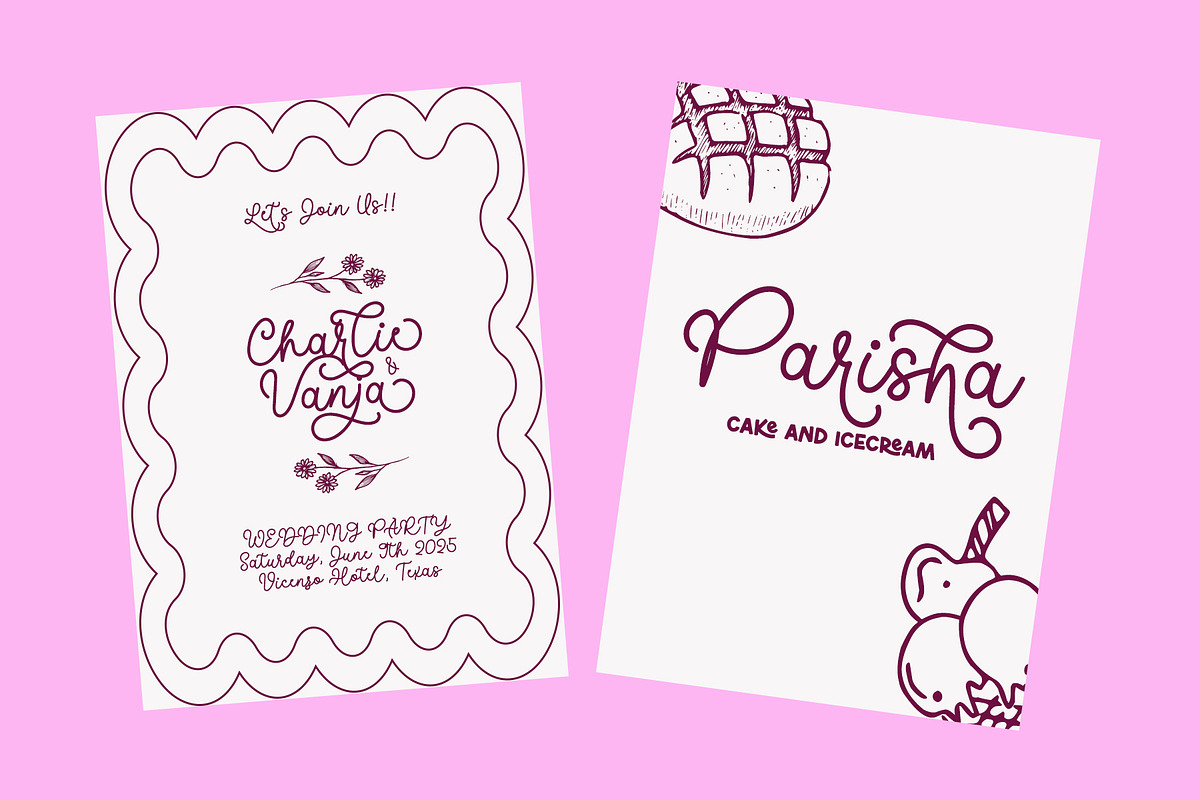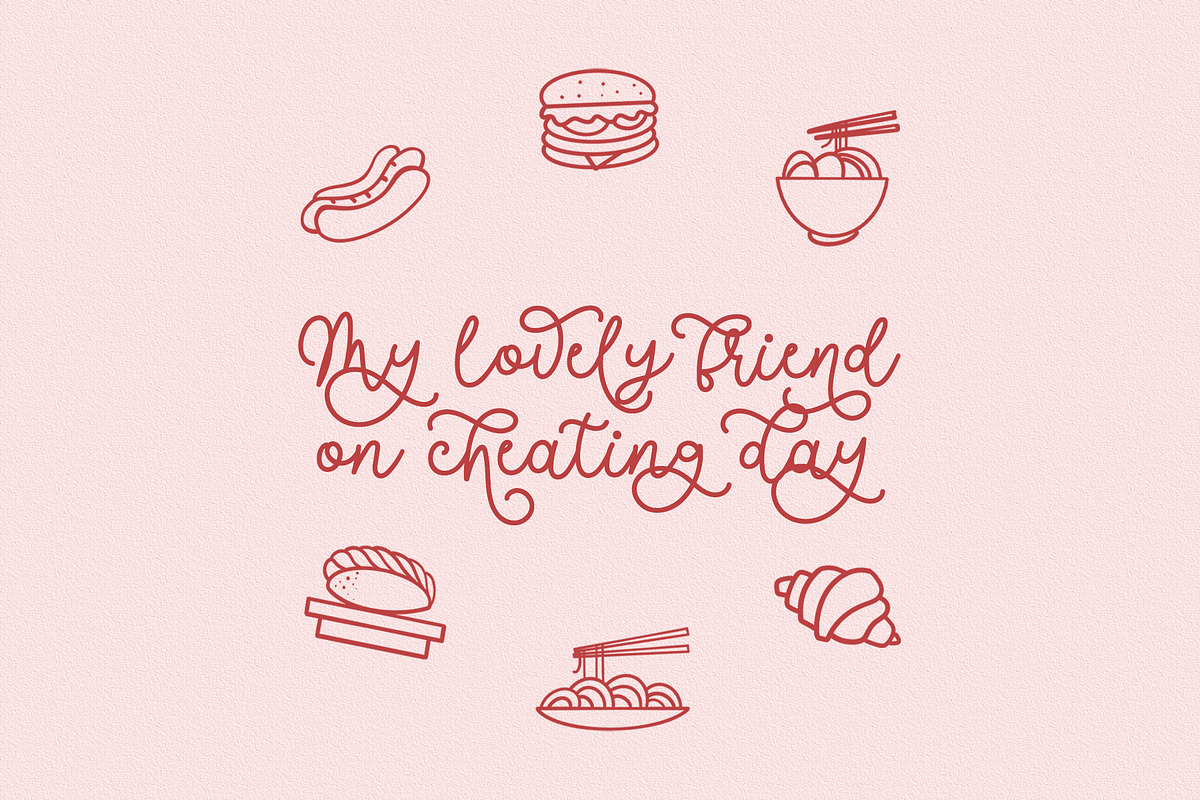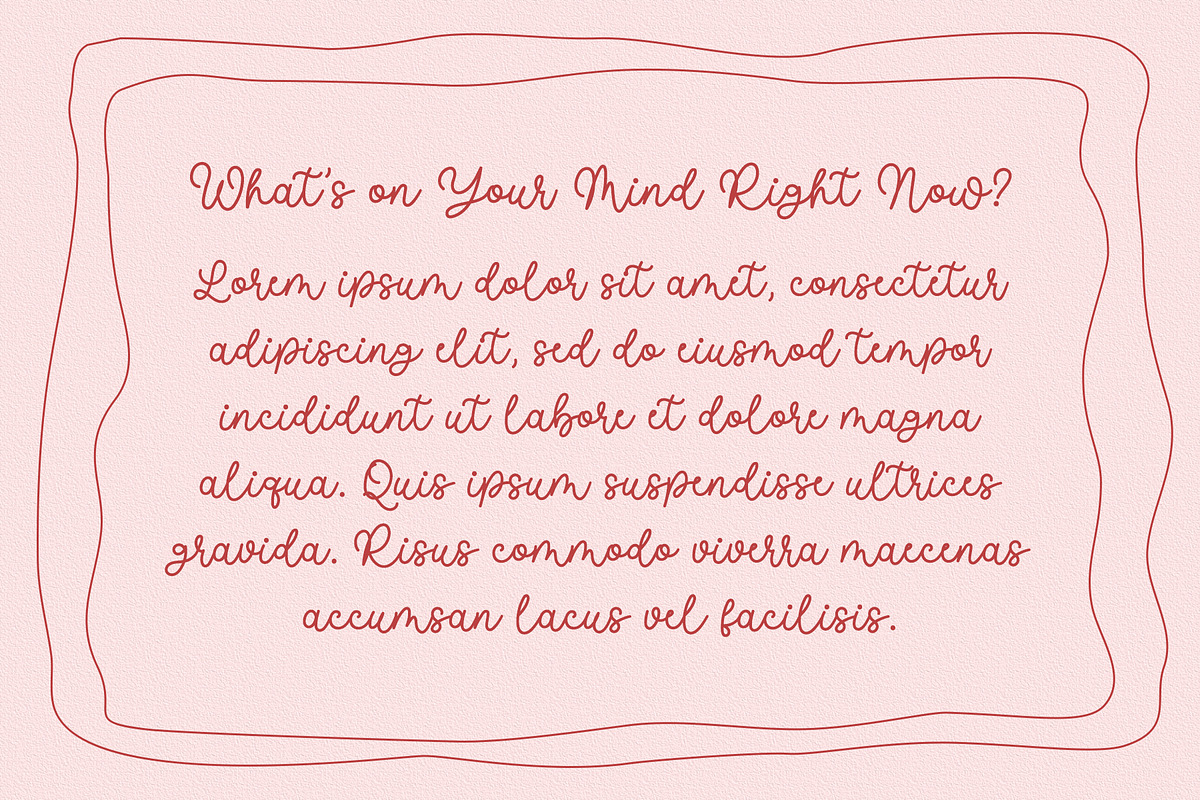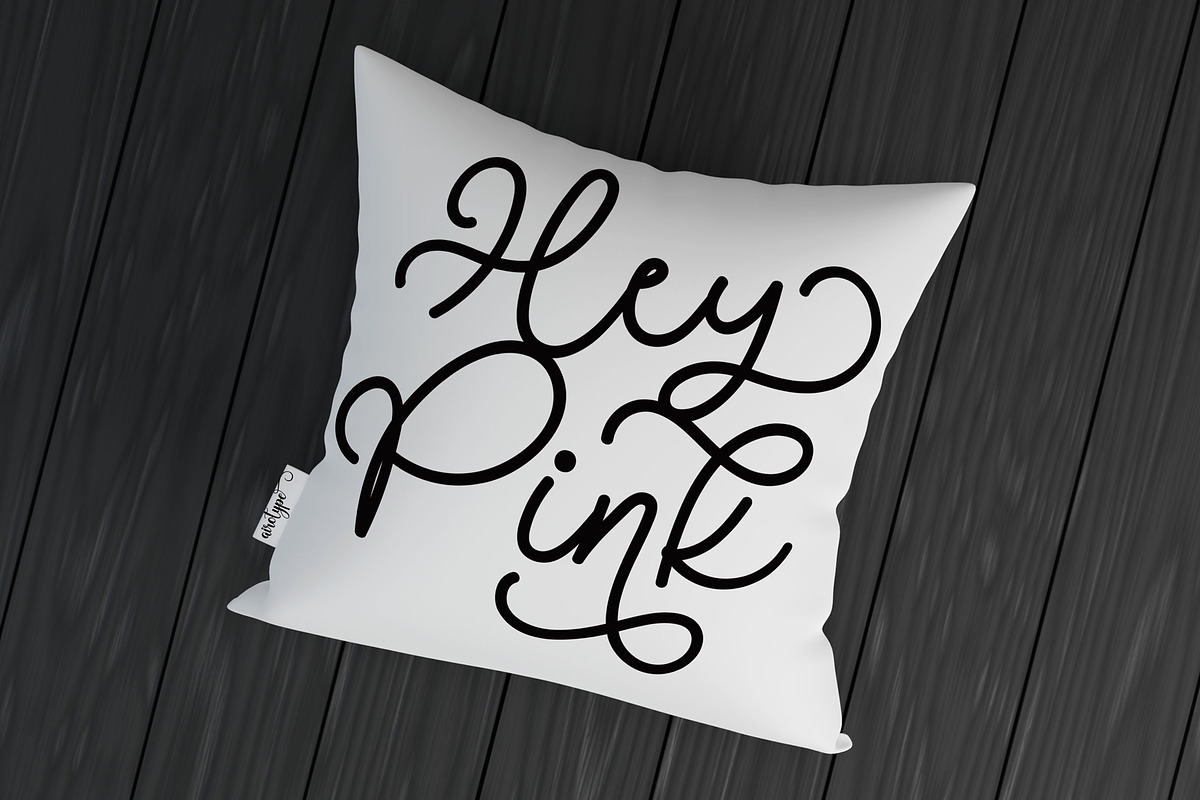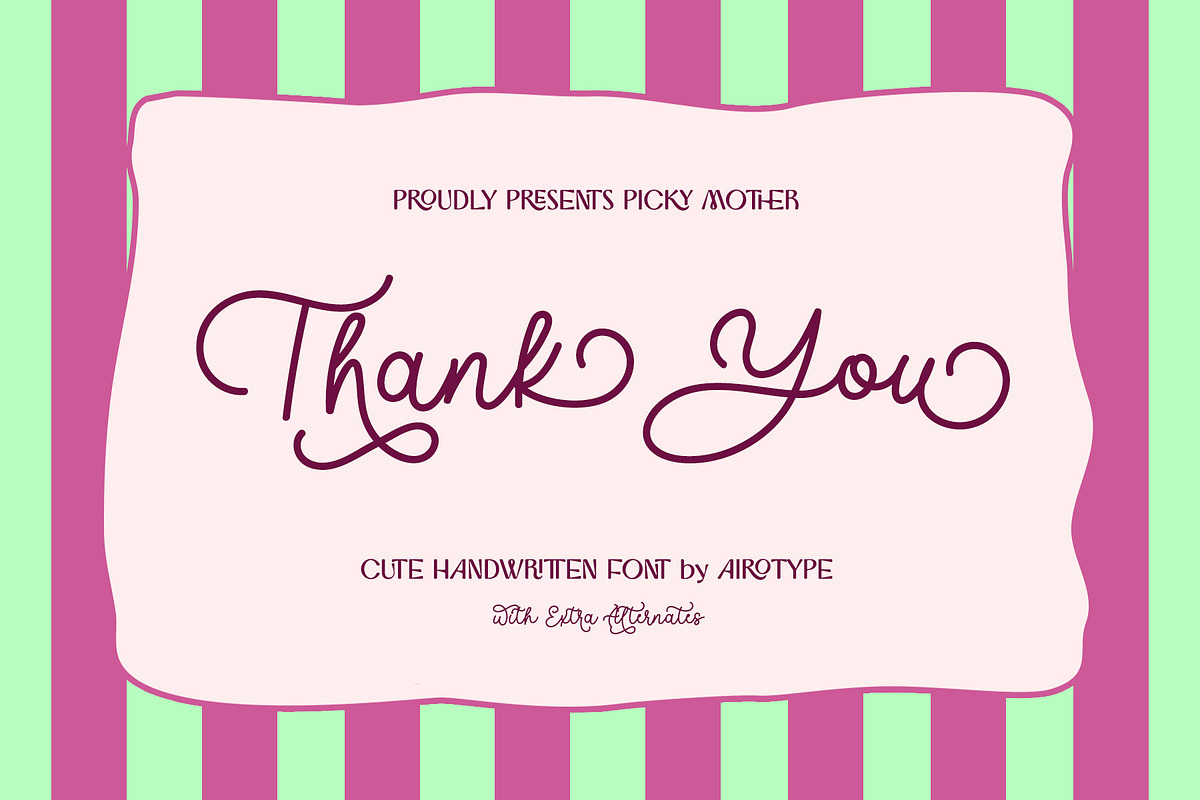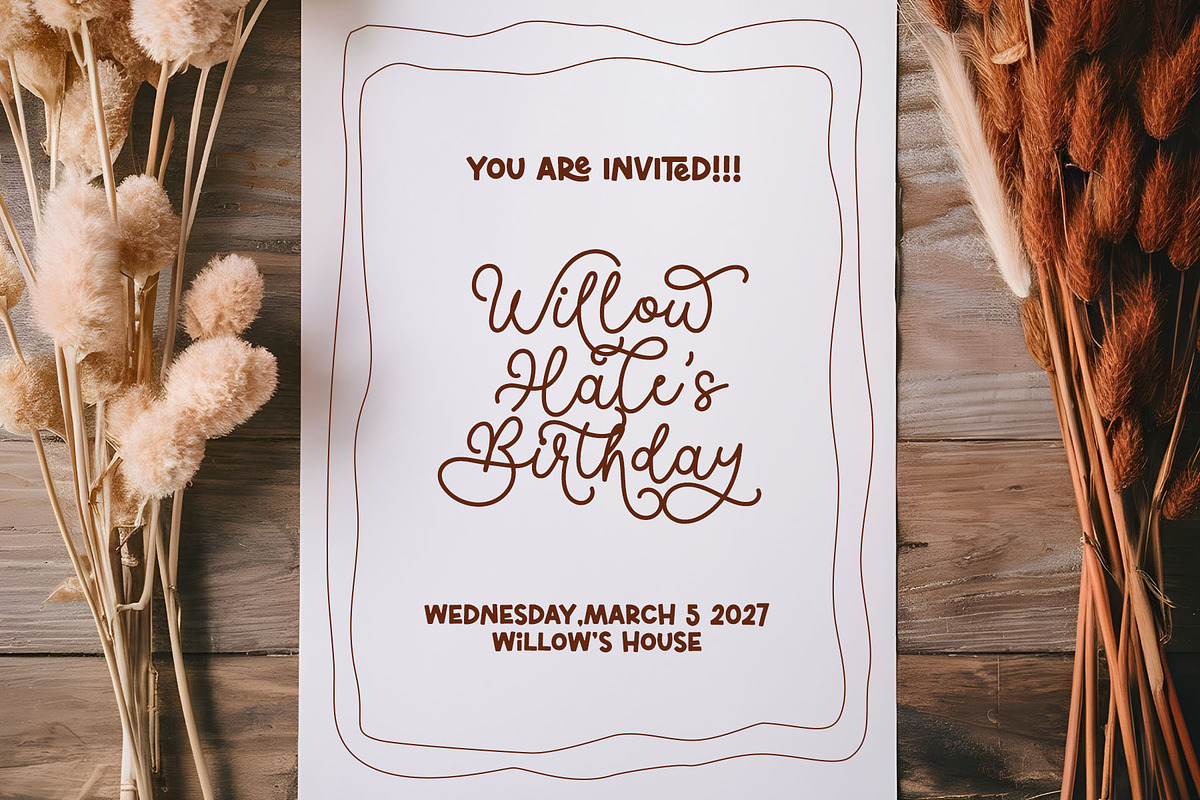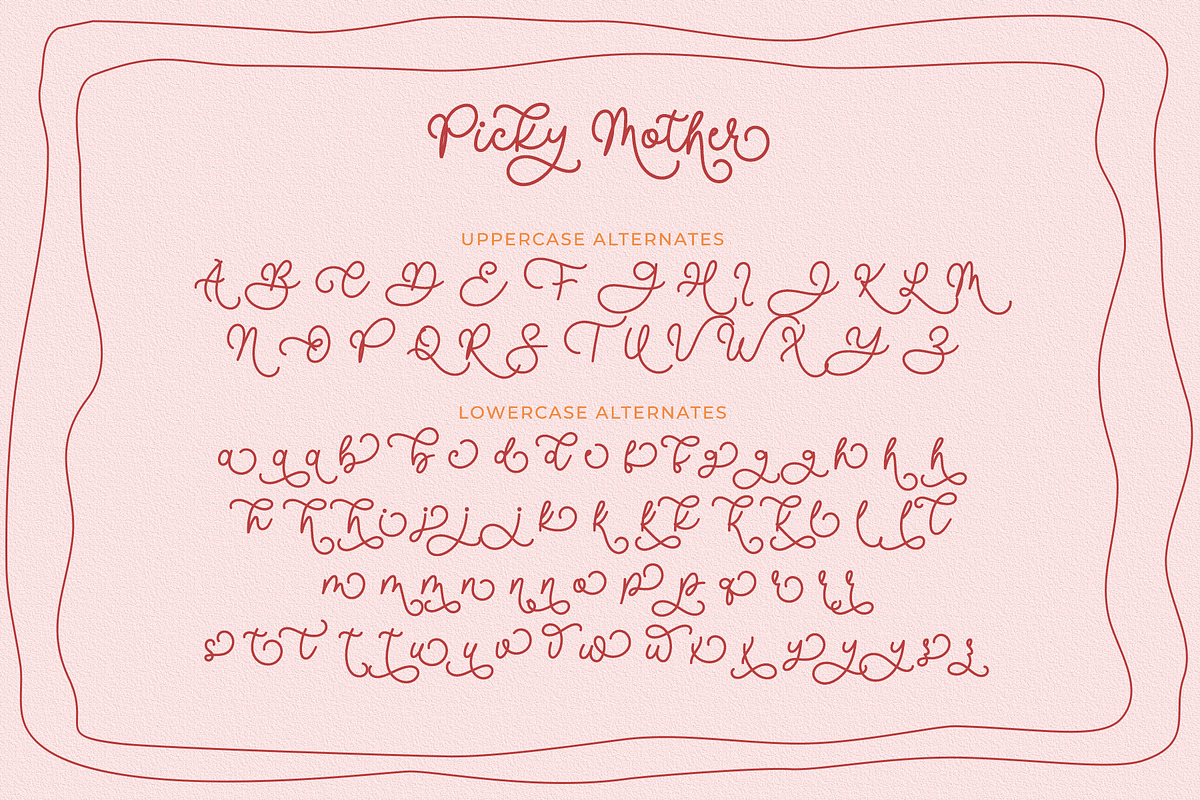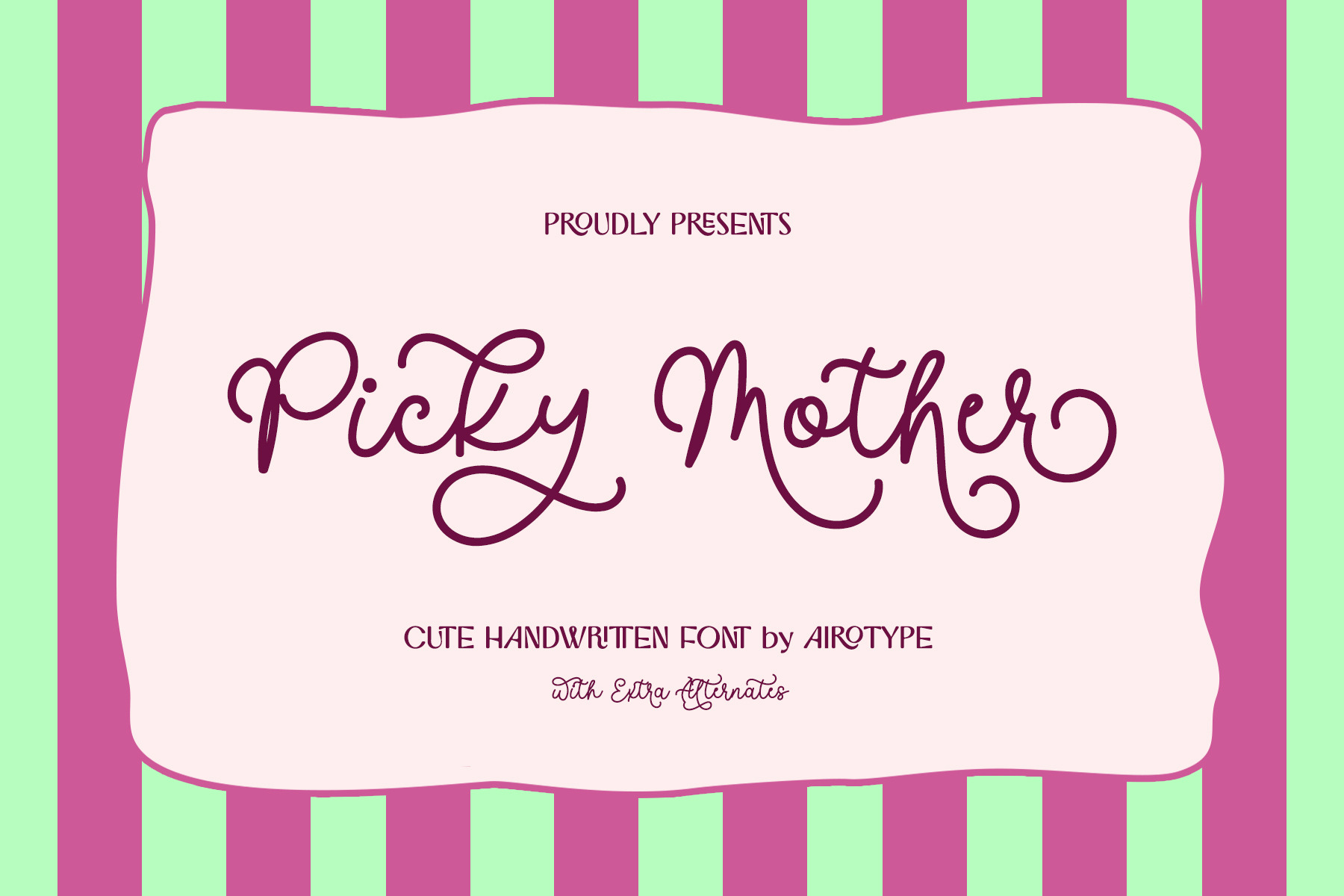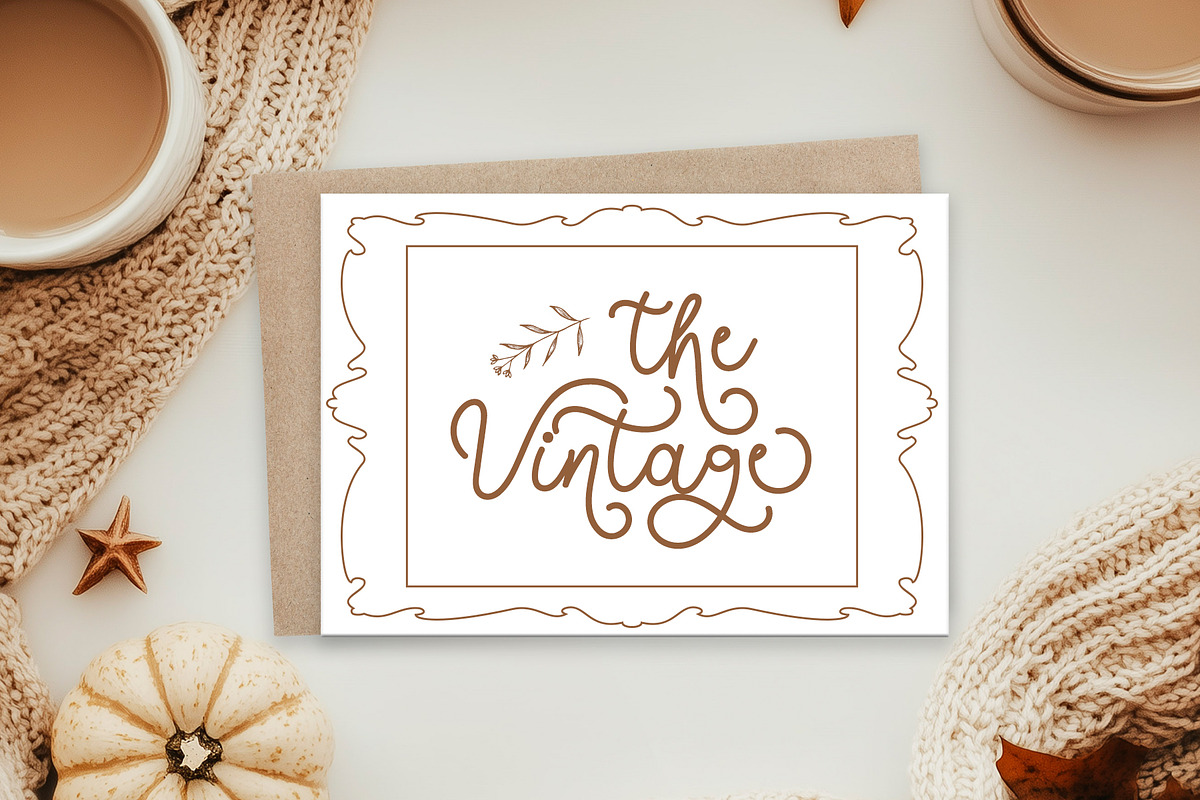
Picky Mother - Cute Monoline Font
Picky Mother is cute and bouncy monoline handwritten font. It emits fun, cuteness, and beauty.
This font has extra glyphs that can be used to give more options in designing.
Picky Mother is pretty font for design with cute and fun theme, such as greeting card, wedding invitation, t-shirt design, crafting, sticker, sublimation, and many more.
- Uppercase & Lowercase (with alternate/extra glyphs)
- Most Multilingual Accent